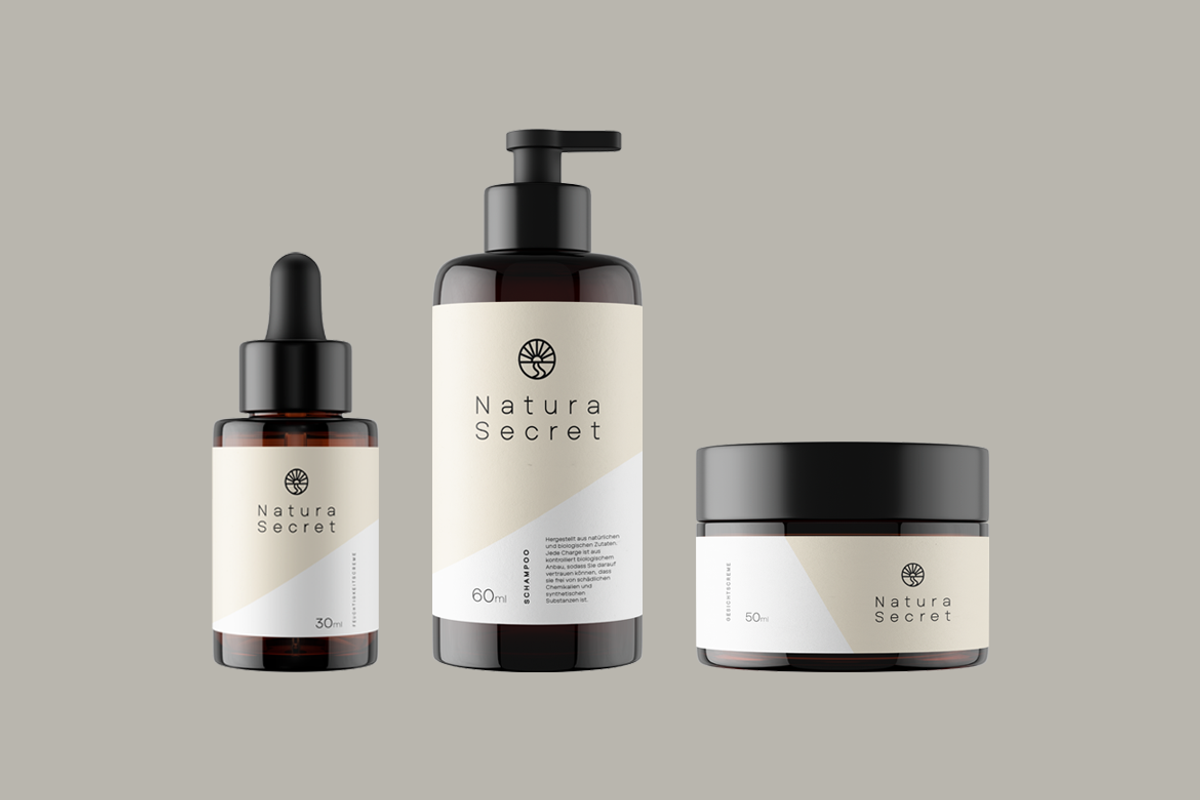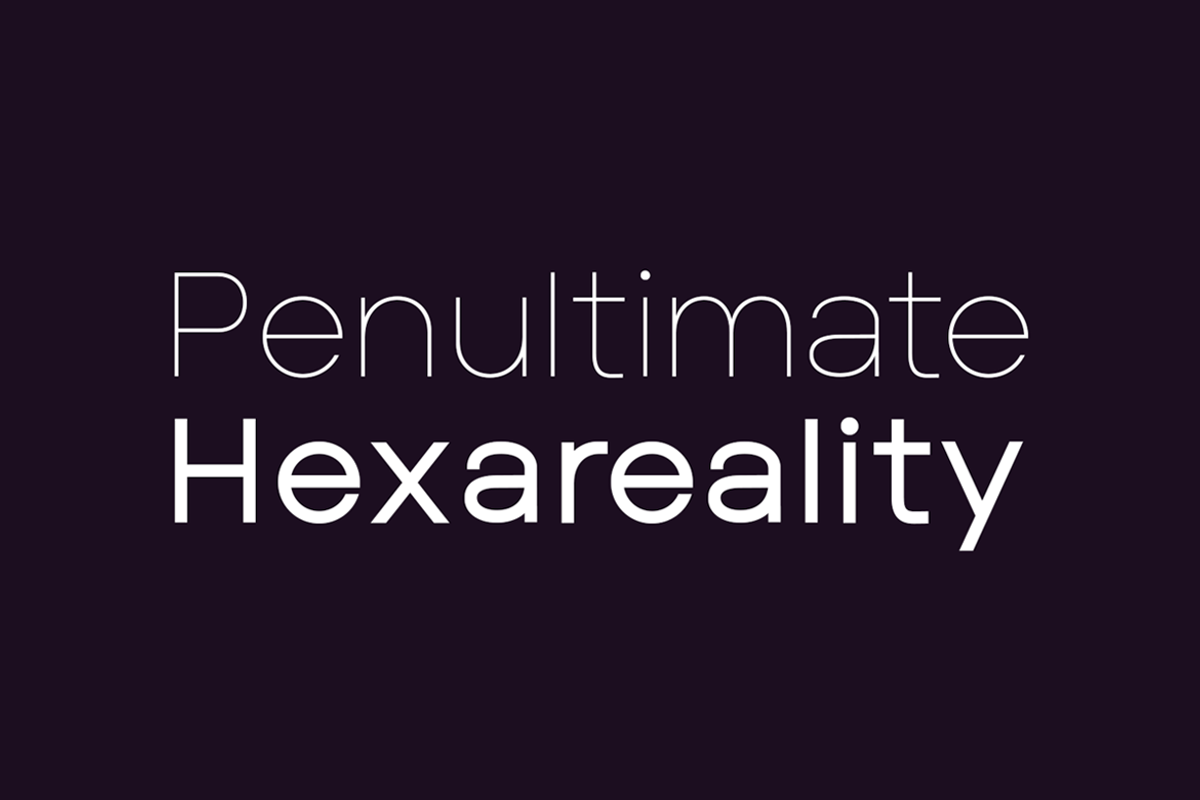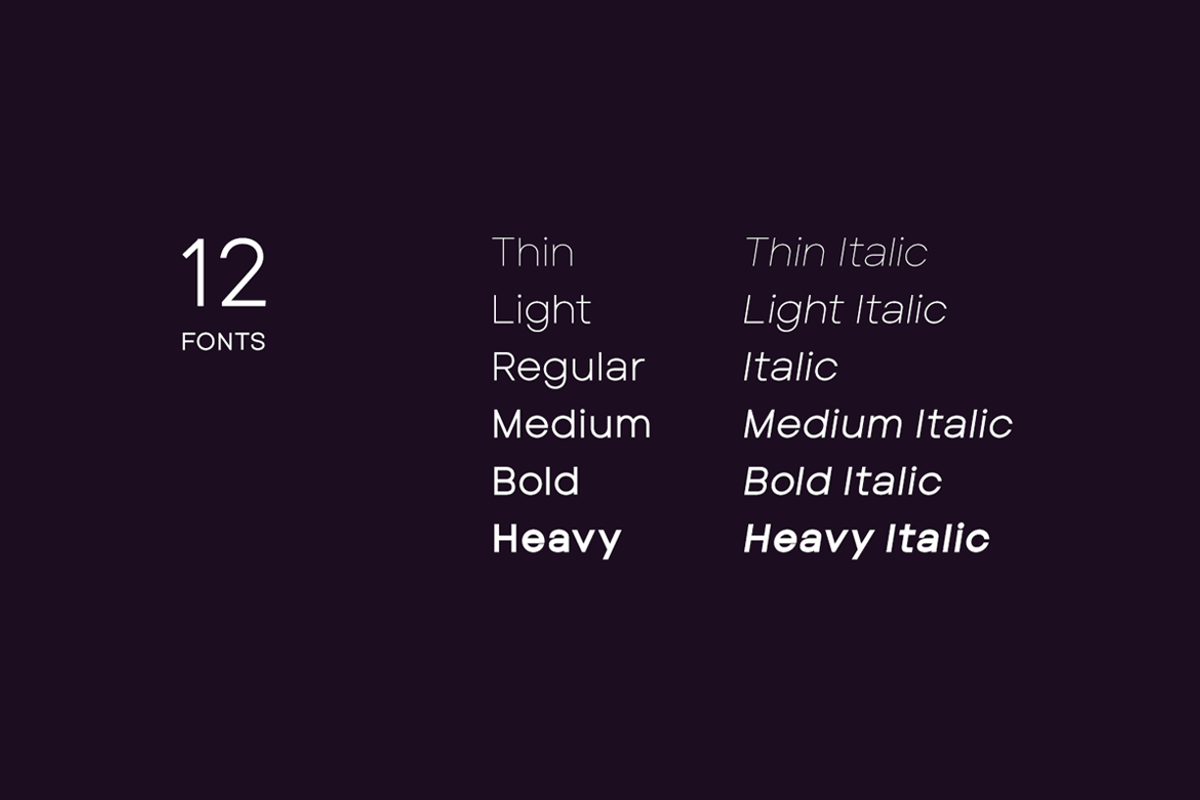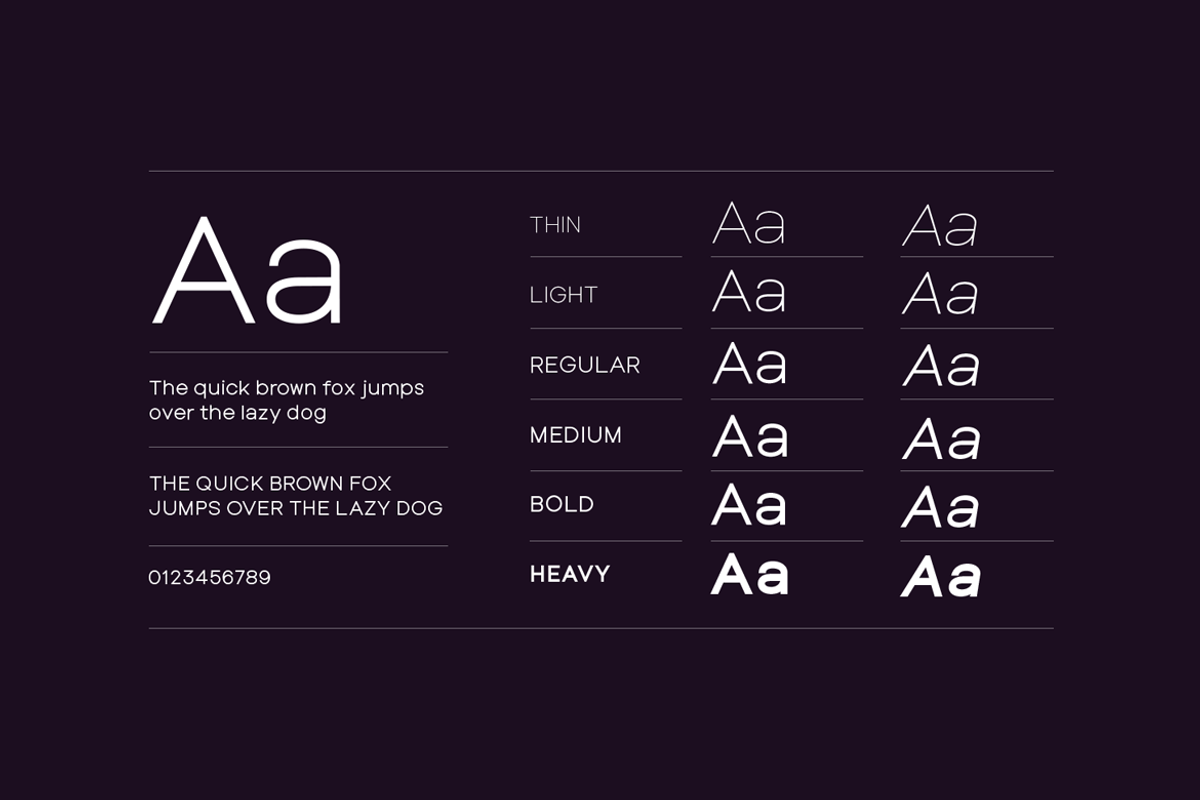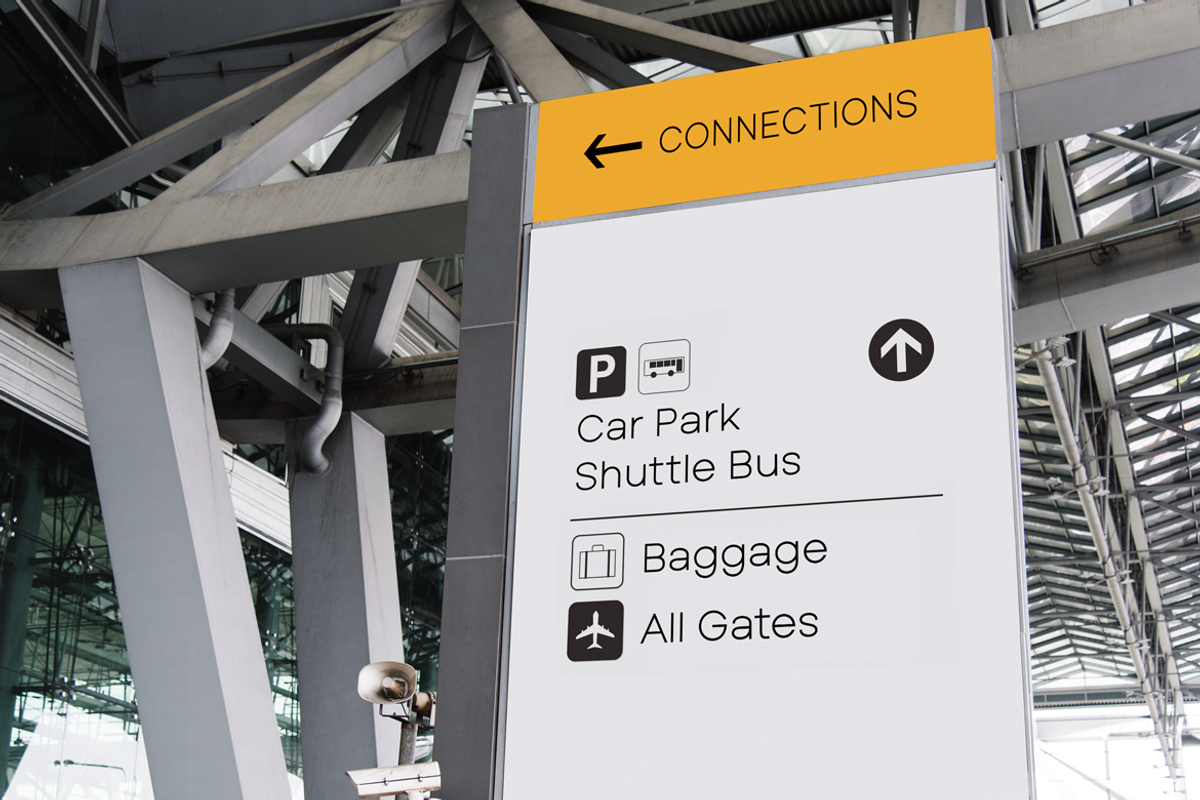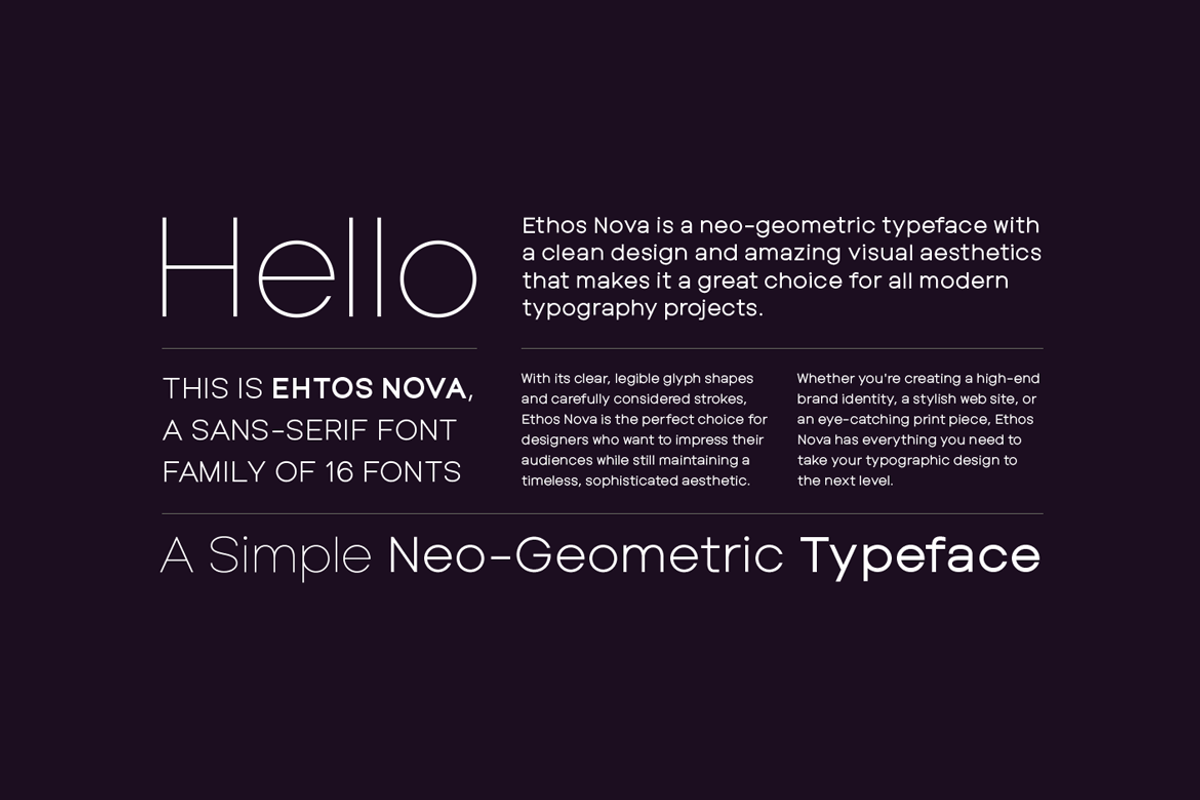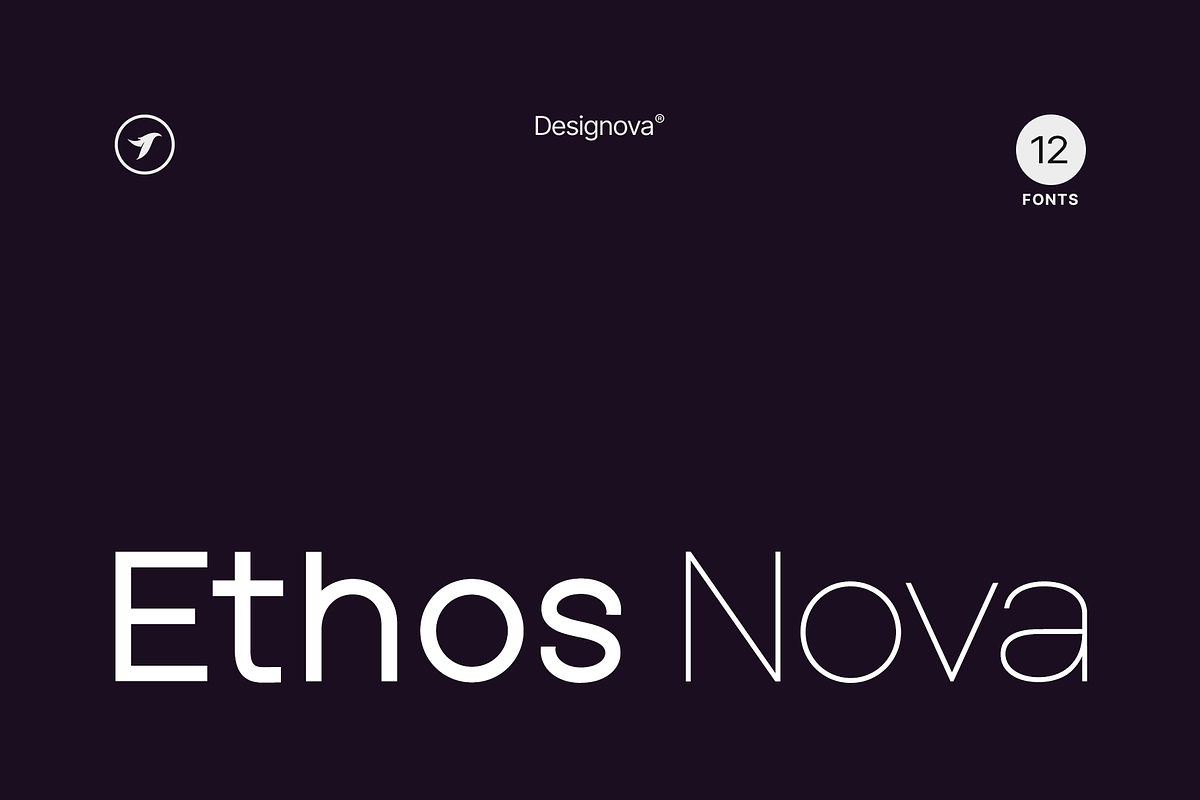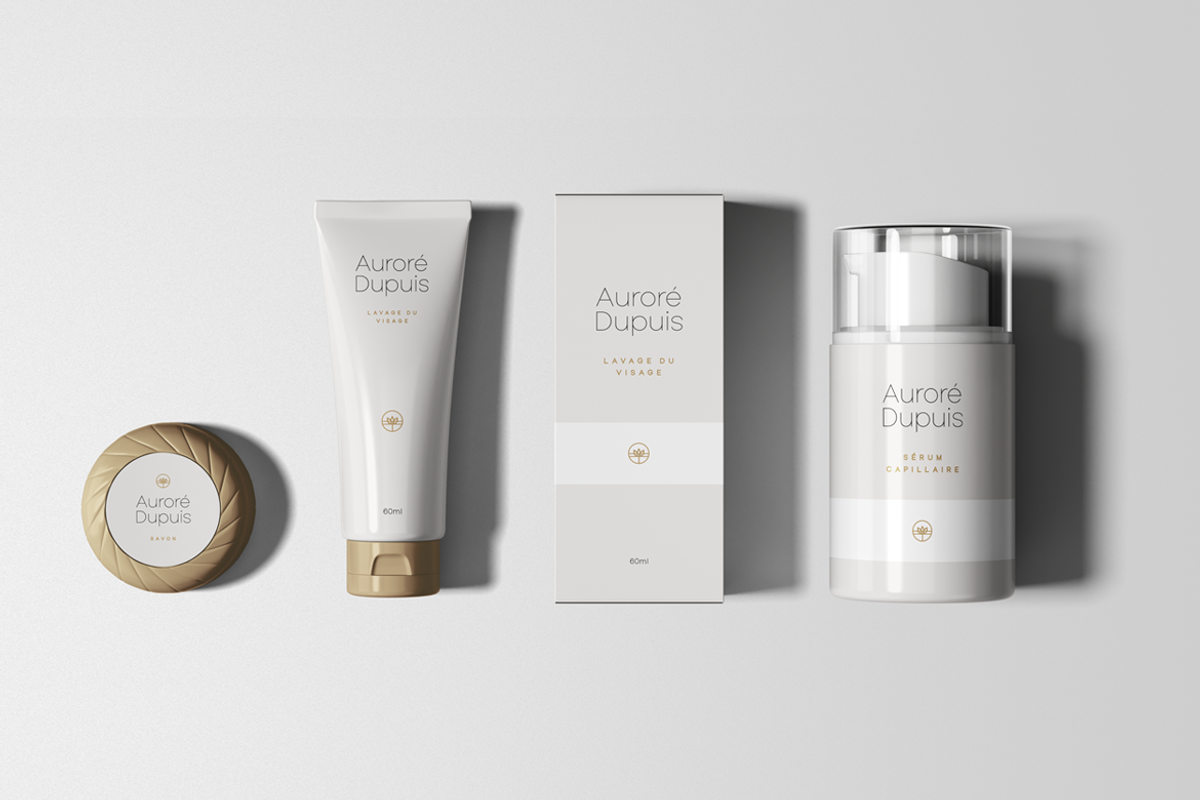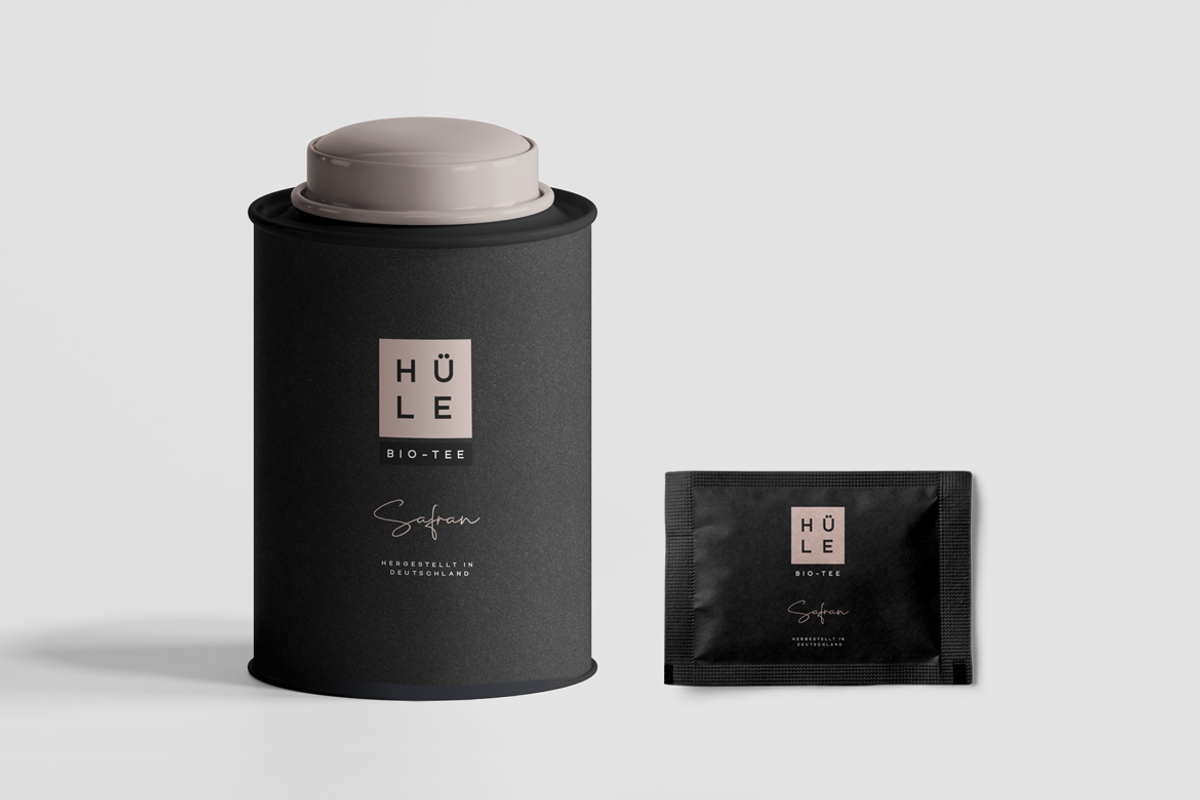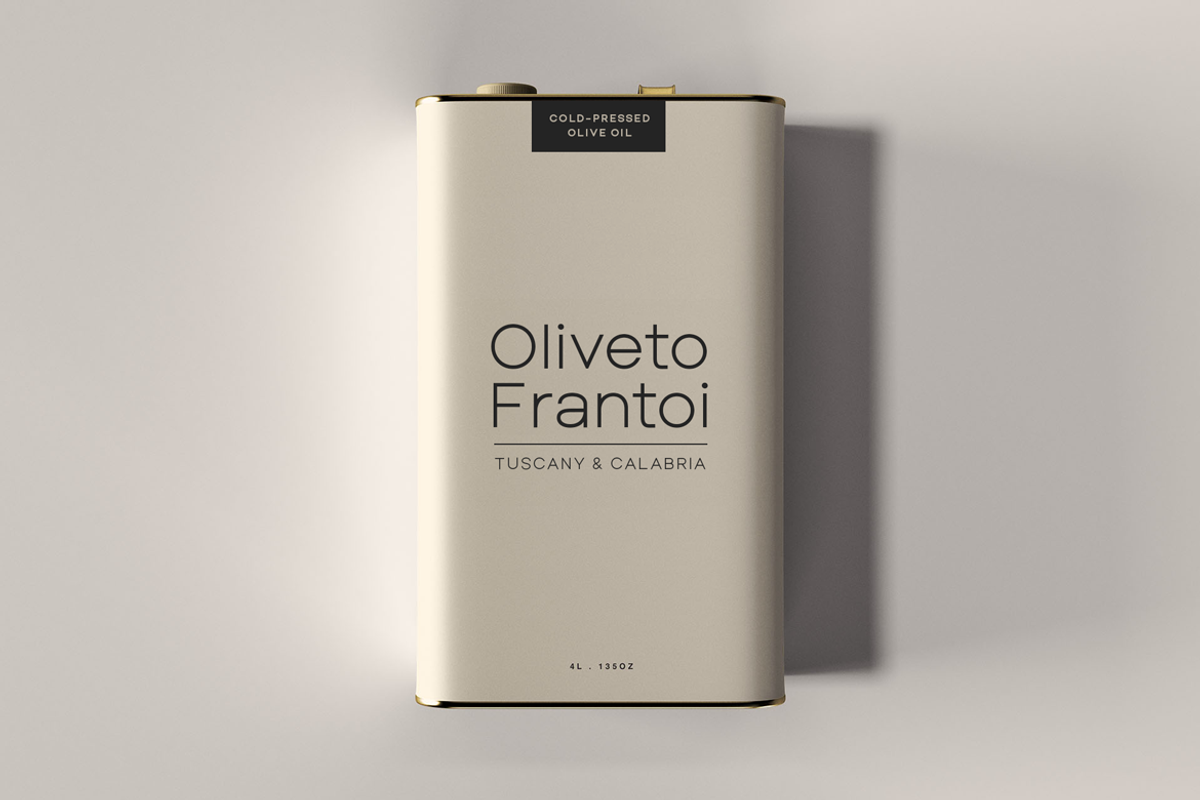
ETHOS NOVA - Minimalist Font Family
ABOUT THE TYPEFACE:
Ethos Nova is a minimalist neo-geometric sans-serif typeface family of 12 fonts featuring the finest design inspired by the simple and clean design approach of the modern era. The typeface is made with a special focus on minimalism and simplicity in typography, this typeface can transform your design projects to another level of visual appeal.
Handcrafted and designed with powerful OpenType features in mind, each weight includes extended language support including Western European & Central European sets. A total of 312 glyphs are included.
Ethos Nova is a perfect choice for graphic design, text presentation, web design, print and display use. The typeface can be an amazing option for branding, logo / logotype design projects, marketing graphics, banners, posters, signage, corporate identities as well as editorial design. Adding extra letter-spacing for the Caps will make this font perfect for minimal headlines and logotypes, as shown in promo images here.
Ethos Nova font family includes a collection of 12 fonts in total, with six upright weights and Italic equivalents of all six weights as follows:
- Thin
- Thin Italic
- Light
- Light Italic
- Italic
- Medium
- Medium Italic
- Bold
- Bold Italic
- Heavy
- Heavy Italic
Handcrafted and designed with powerful OpenType features in mind, each weight includes extended language support with Western European, Central European, and South Eastern European sets. A total of 312 glyphs are available.